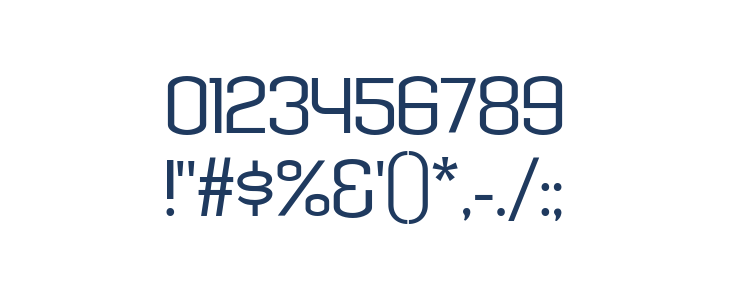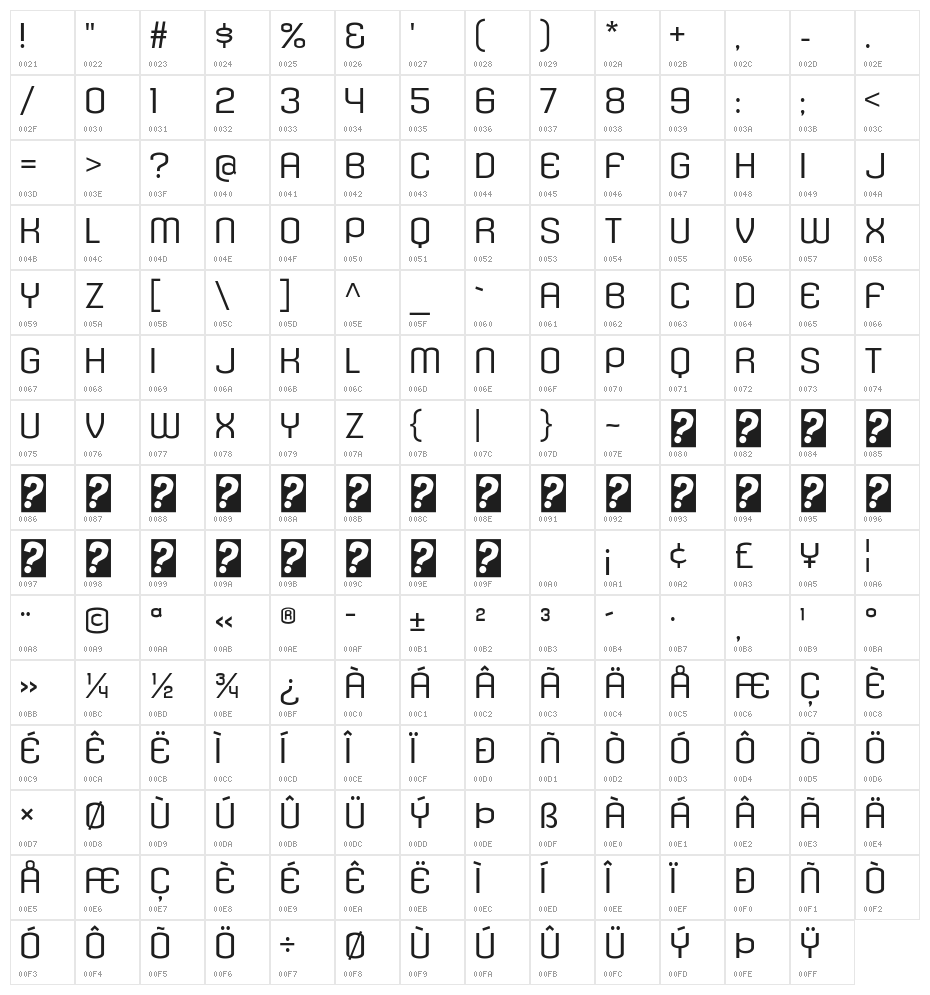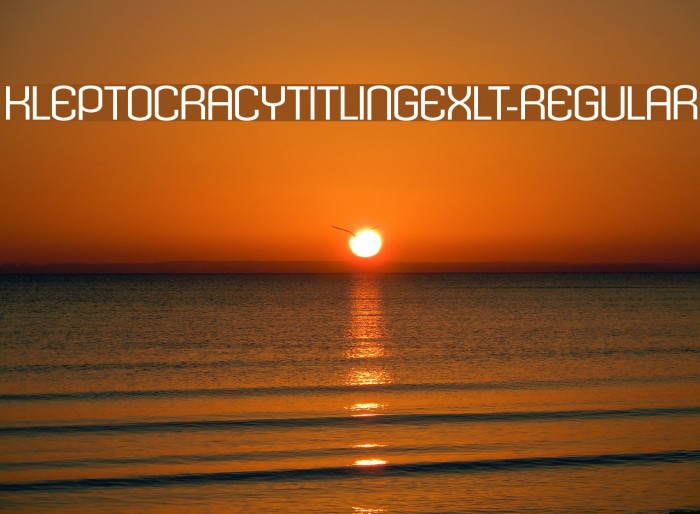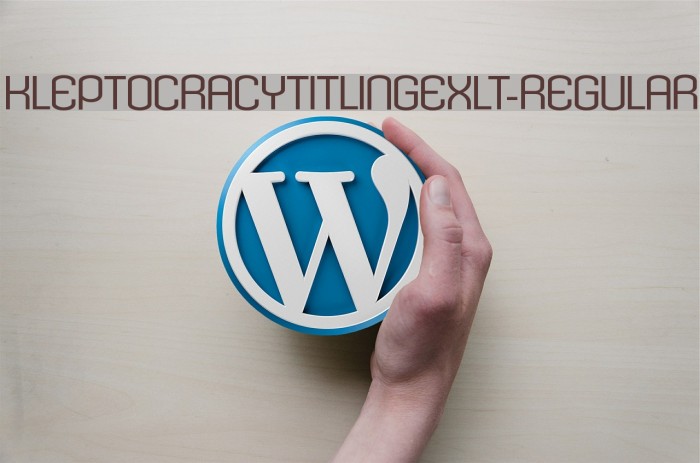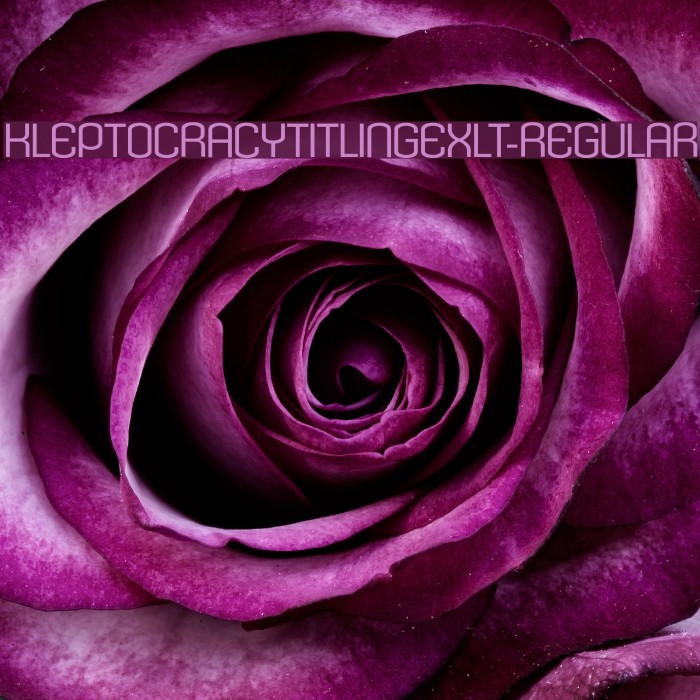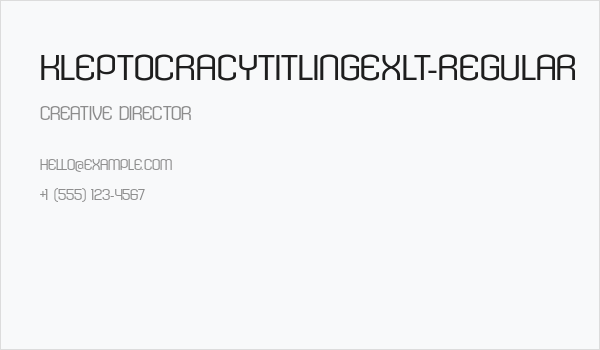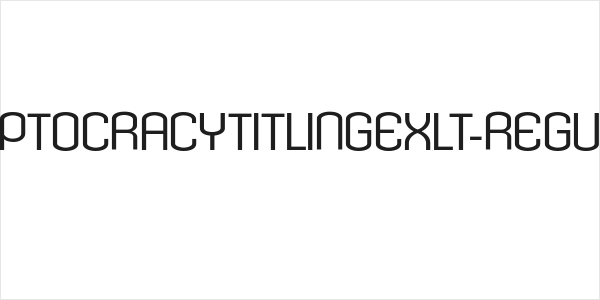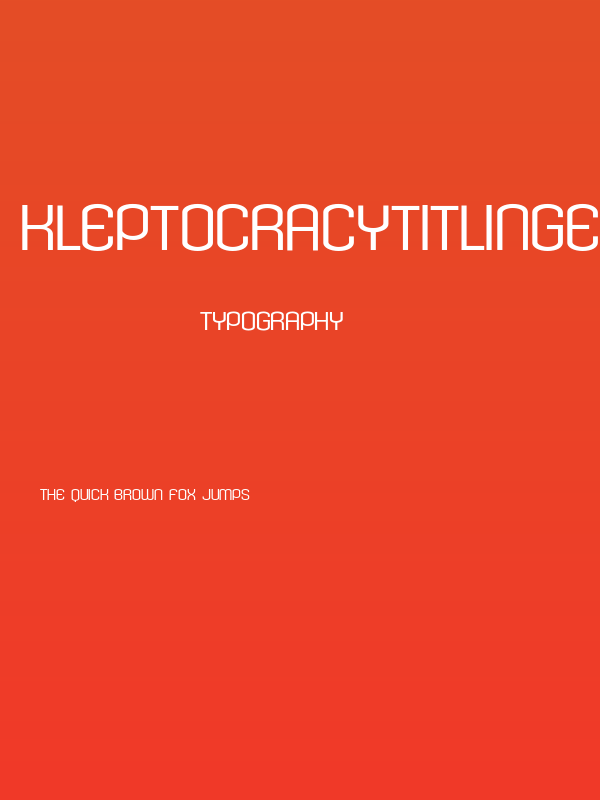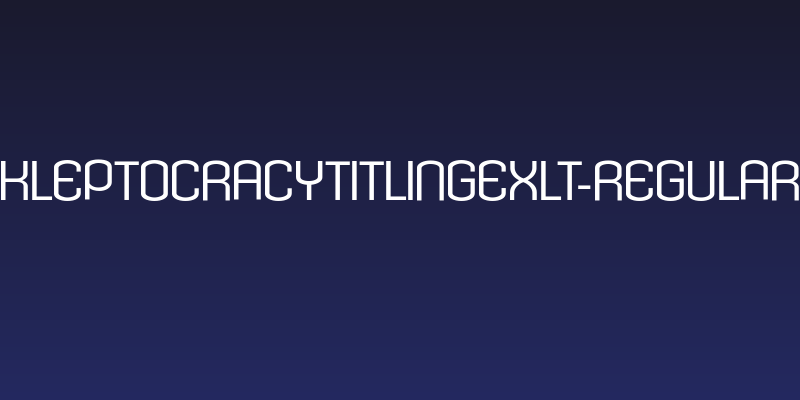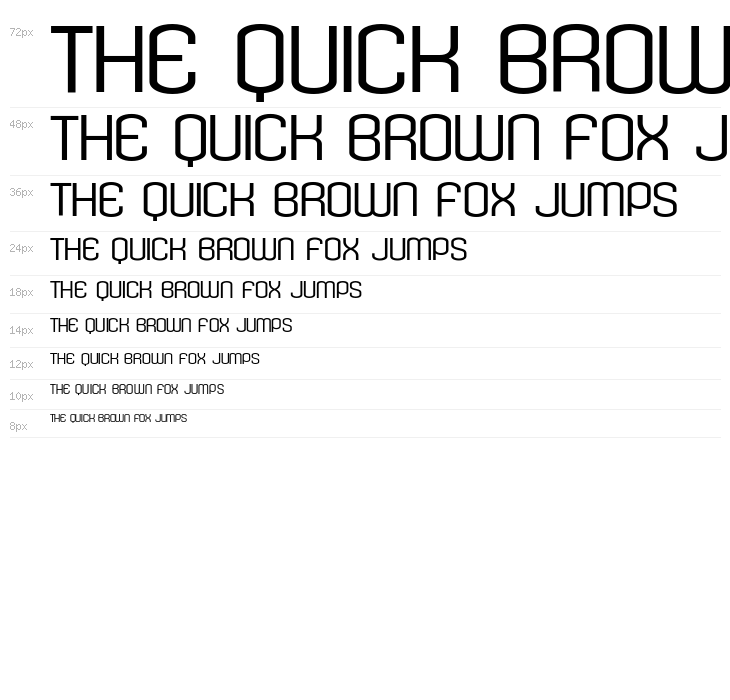
KleptocracyTitlingExLt-Regular Font
KleptocracyTitlingExLt-Regular Description
This font features a geometric and modern design with clean, straight lines and rounded edges. The characters are evenly spaced, creating a balanced and harmonious appearance. The uppercase and lowercase letters maintain a consistent height, contributing to a uniform look. The numerals are bold and easily distinguishable, while the special characters complement the overall style. This font's simplicity and clarity make it suitable for various design applications, providing a contemporary and sleek aesthetic.
Use CaseHeadlines, Logos, Digital interfaces
Proposed ProjectsIdeal for branding, logos, headlines, and digital interfaces that require a modern and clean look.